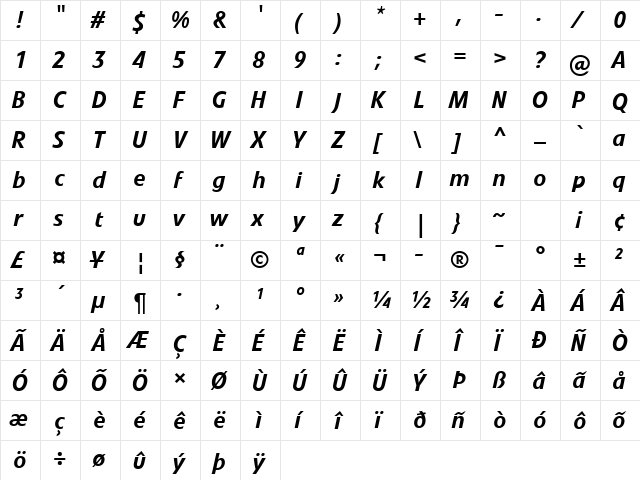
Veto Com Medium Italic
| Foundry | Linotype GmbH |
| Designer | Marco Ganz |
Design Context for Veto Com Typeface
Veto Com offers clean, dependable letterforms without strong stylistic allegiance, making it a practical choice for designers who need flexibility. Its italic angle brings a sense of urgency and motion to the letterforms.